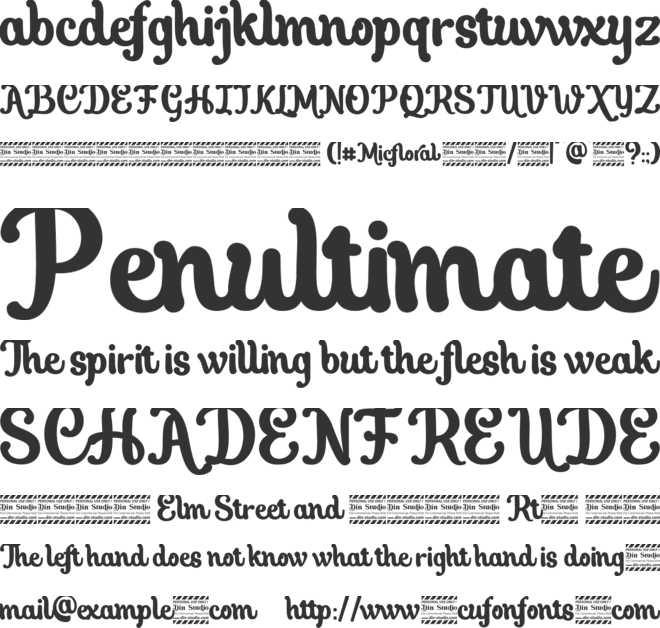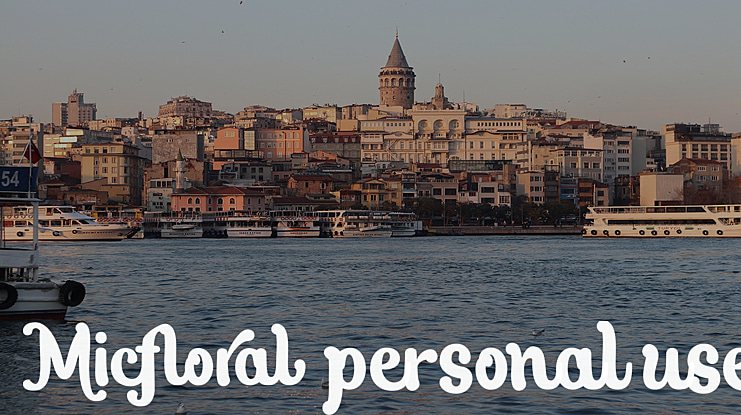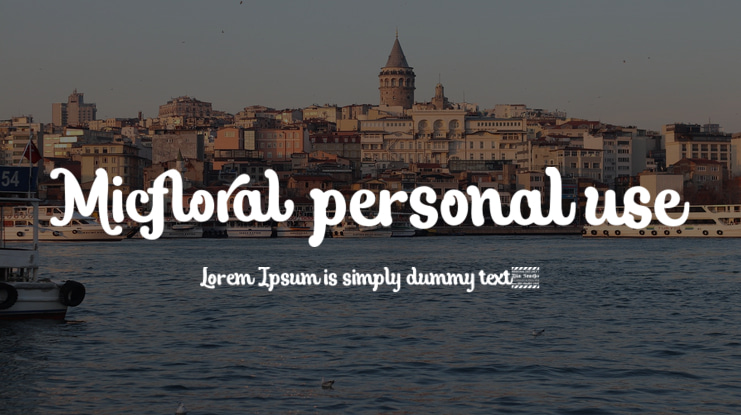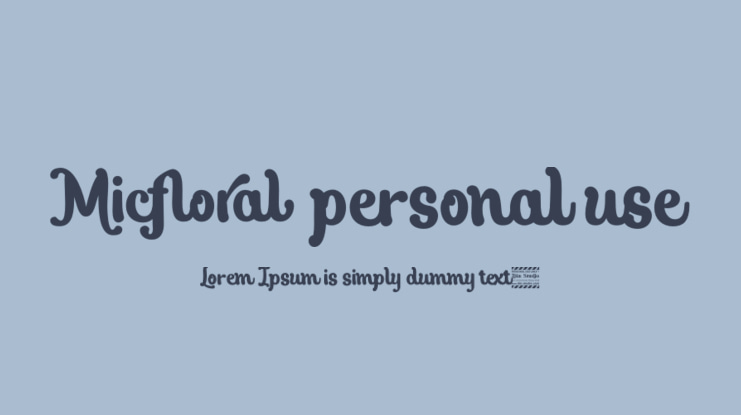
Micfloral is designed with perfectly balanced between playfulness and refinement, this display font delivers your message with style. Use it for social media branding projects, book cover, fashion designs, printed quotes, packaging, or even as a stylish text overlay to any background image.